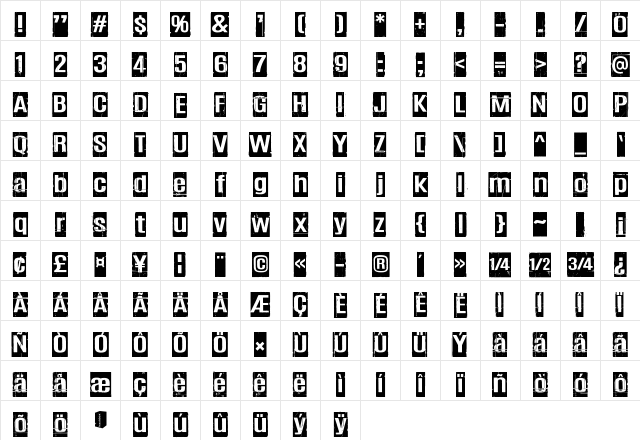
Trashbox Regular Free Font
Trashbox Regular
Designer: junkohanhero
Design Context for Trashbox
Trashbox is a composed and adaptable typeface that performs quietly and consistently across a wide range of design contexts.